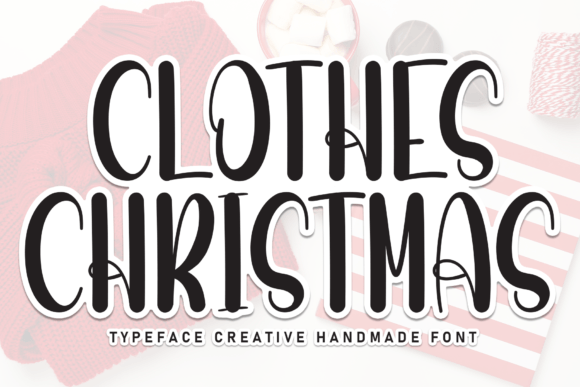
Getting Cozy with the Clothes Christmas Font
As the holiday season approaches, I find myself rummaging through old trunks and boxes in my attic, searching for that perfect vintage ornament or a handmade card to give to loved ones. It’s in these moments of nostalgia that I’m reminded of the joy of creating something special with a touch of personality. And what better way to add a dash of whimsy to your designs than with the Clothes Christmas Font?
This sweet and friendly handwritten font is the perfect addition to any designer’s toolkit. Whether you’re crafting wedding invitations, designing holiday cards, or simply looking to add a fun touch to your next project, the Clothes Christmas Font is sure to bring a smile to your face and a sparkle to your designs. Its unique charm and playfulness make it a valuable asset for designers looking to add a personal touch to their work.
Clothes Christmas Font Key Features
- Unique Characteristics: The Clothes Christmas Font features a playful and festive design, with intricate details and ornaments, making it perfect for holiday-themed projects.
Clothes Christmas Font Review
Clothes Christmas Font is a fun and playful font that captures the spirit of the holiday season. It’s perfect for creating festive designs, gift tags, and holiday cards. Here are some things that work well:
- ✨ Unique and creative design: Clothes Christmas Font has a distinct look that sets it apart from other holiday fonts.
- ✨ Easy to read: Despite its playful nature, the font is still easy to read and understand.
- ✨ Great for digital use: The font looks great on both digital screens and print materials.
- ⚠️ Limited character set: The font only includes uppercase and lowercase letters, numbers, and a few special characters.
- ⚠️ Not ideal for body text: While the font is great for headings and titles, it may not be the best choice for large blocks of body text.
Overall, Clothes Christmas Font is a fun and creative font that’s perfect for adding a touch of holiday cheer to your designs. It’s a great choice for designers who want to add some personality to their work, but it may not be the best choice for every project. With a little creativity, it can be used in a wide range of applications.
The Clothes Christmas Font is perfect for holiday-themed designs, such as: